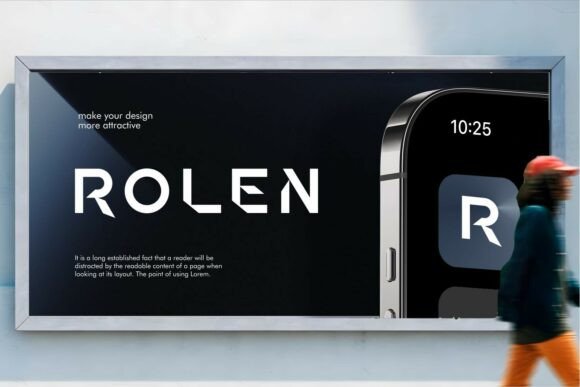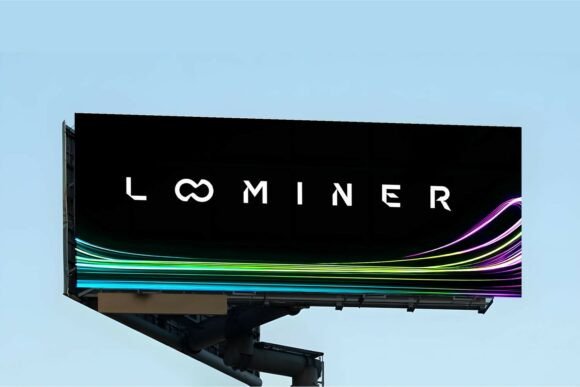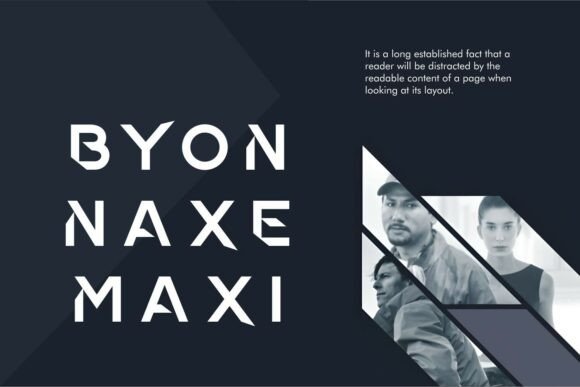
Introduction to Kloema Font
Meet Kloema, a bold and futuristic sans serif font designed for modern logos, tech branding, and luxury business identity.
With its distinctive geometric shapes and infinite “OO” letterform, Kloema stands out as a signature font for high-end brands, creative agencies, fashion tech, and crypto startups Ideal for corporate stationery, digital media, packaging, and professional website design.